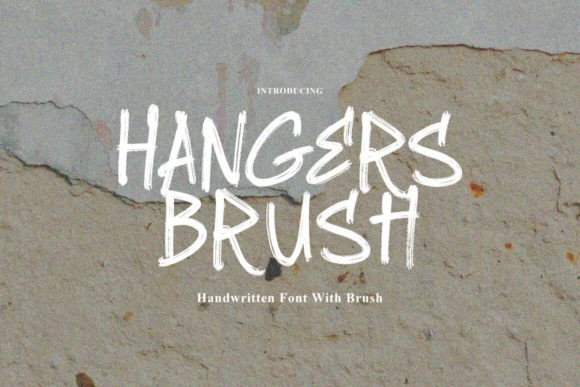
Introducing Hangers Brush Font, the ultimate choice for your business cards and creative projects! Crafted by the talented Tebaltipis.std, this font is a captivating blend of cool and modern handwriting, guaranteed to grab attention and leave a lasting impression.
With its unique script style, Hangers Brush Font adds a touch of personality and elegance to any design. Whether you're creating business cards, logos, invitations, or branding materials, this font is the perfect companion to showcase your creativity and professionalism.
Embrace the power of Hangers Brush Font and unlock a world of possibilities. Its versatility allows it to effortlessly adapt to different themes and industries, making it suitable for a wide range of projects. Whether you're a designer, entrepreneur, or freelancer, this font will elevate your work to new heights.
Capture the essence of your brand with Hangers Brush Font. Its eye-catching curves and strokes exude confidence and style, leaving a memorable impression on your audience. Create stunning visual experiences that evoke emotions and connect with your target customers.
But Hangers Brush Font is not just about aesthetics; it also delivers exceptional readability. Each letter is carefully crafted to ensure clarity and legibility, even at smaller sizes. Your messages will be effortlessly communicated, ensuring that your audience understands and engages with your content.